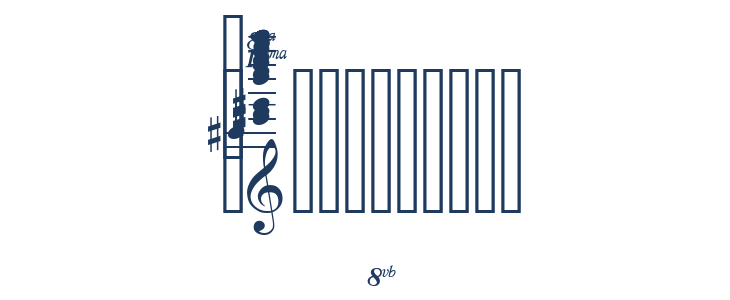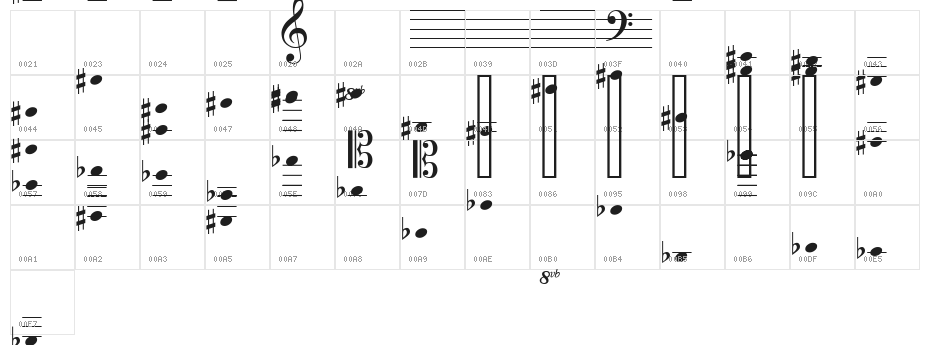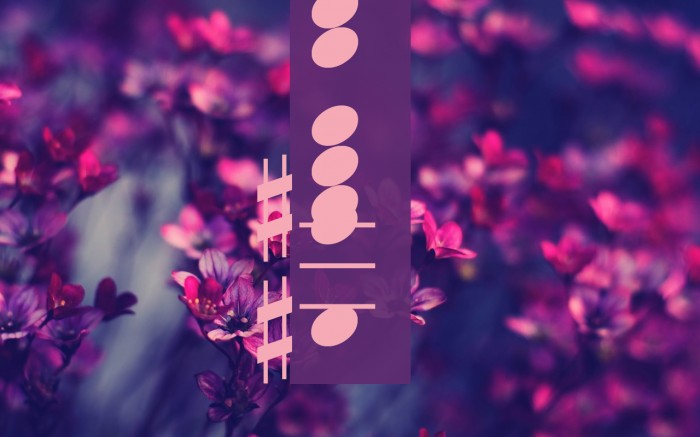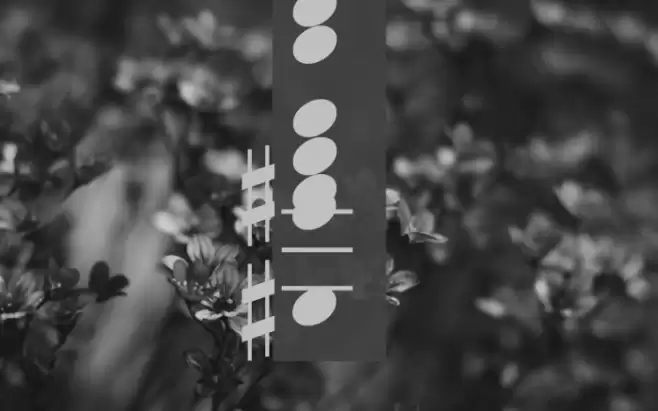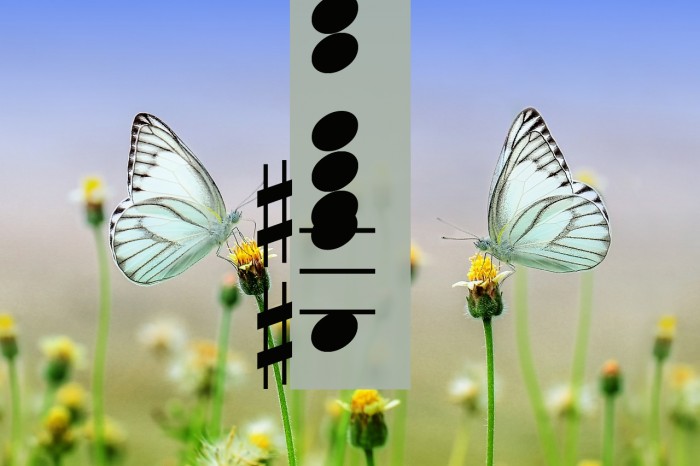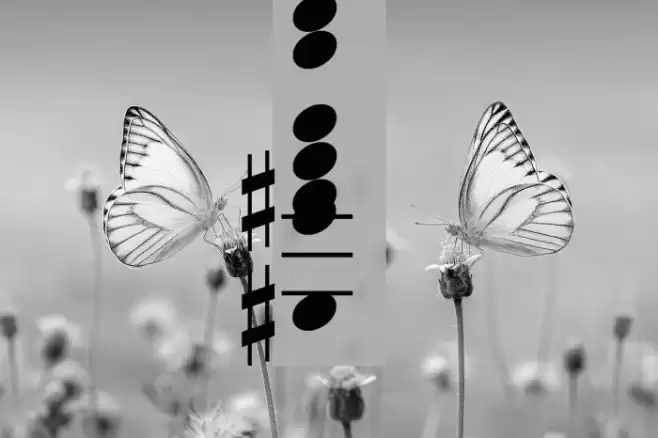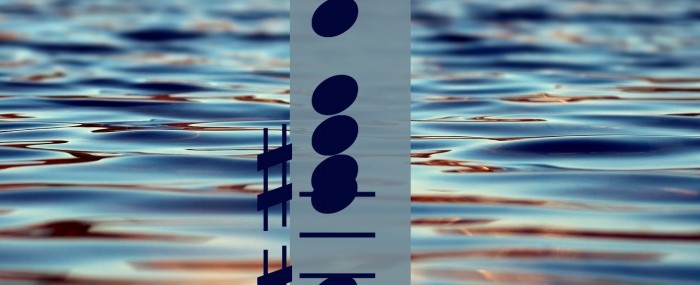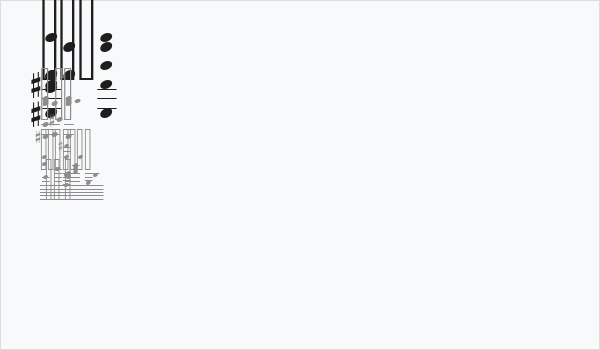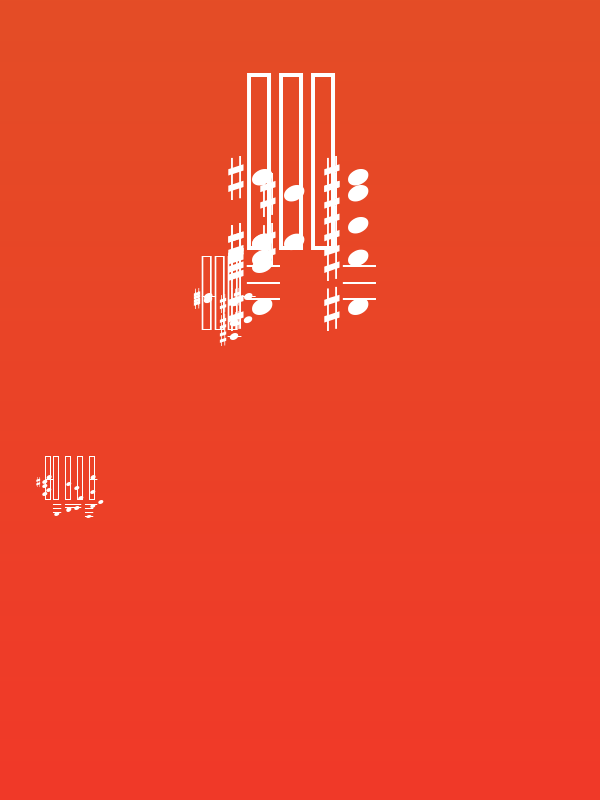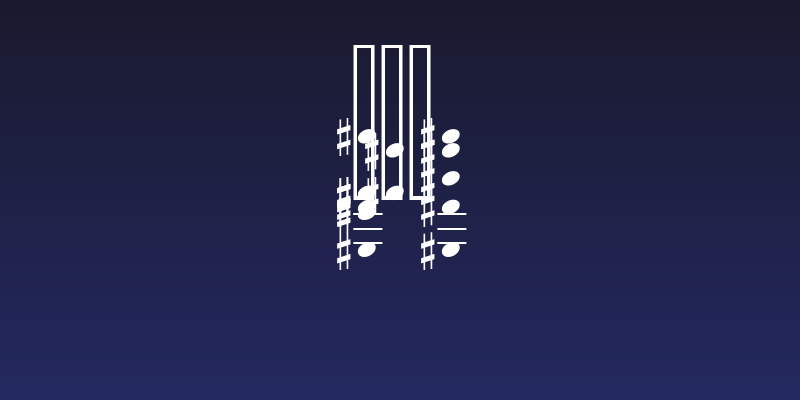
StaffClefPitches Font
StaffClefPitches Description
The image contains overlapping musical notation symbols, including staff lines, clefs, accidentals, and noteheads, rather than a typographic font. The arrangement is dense and abstract, making it unsuitable for text-based design.